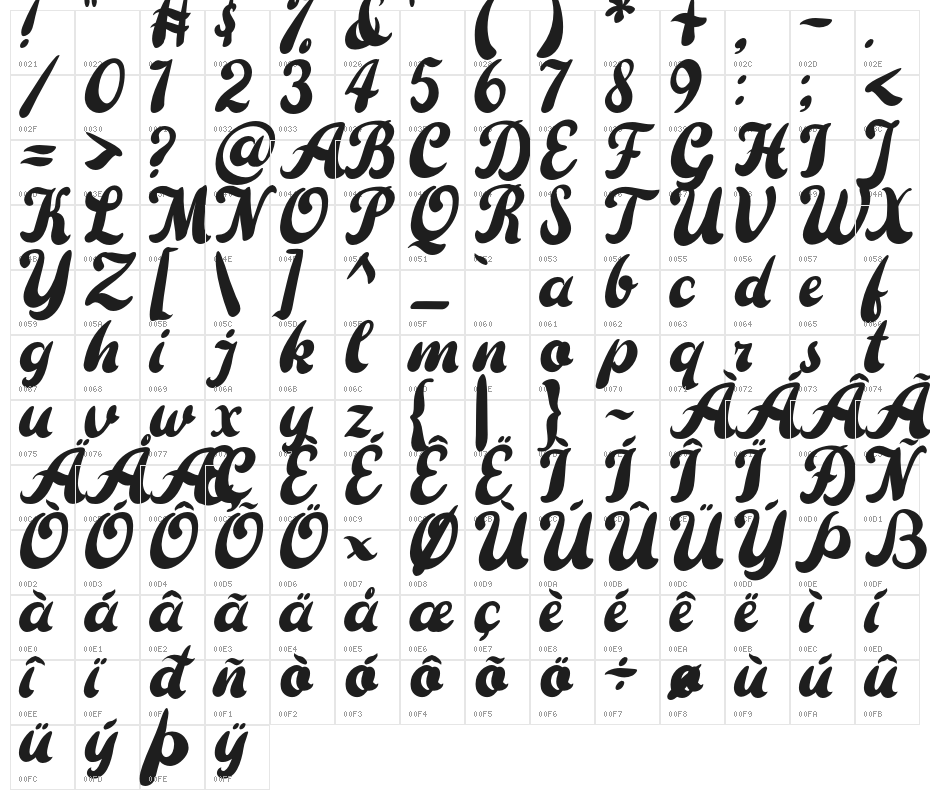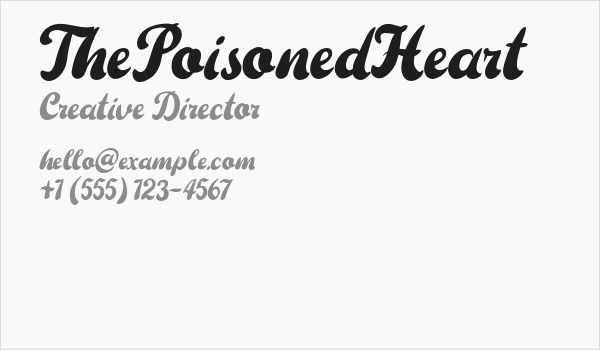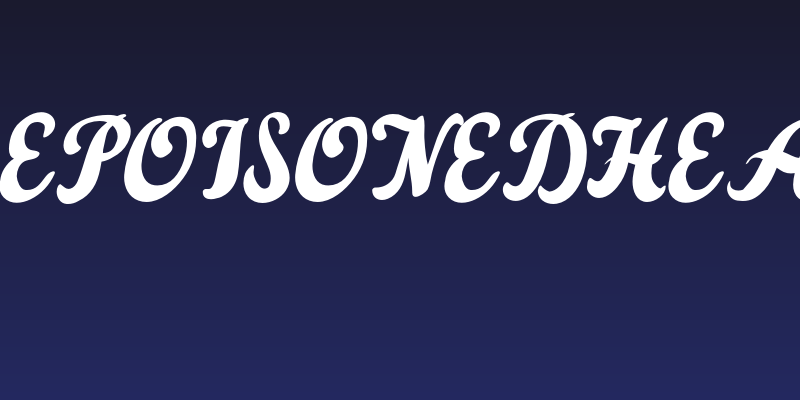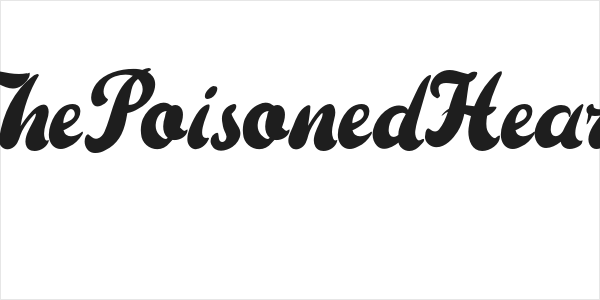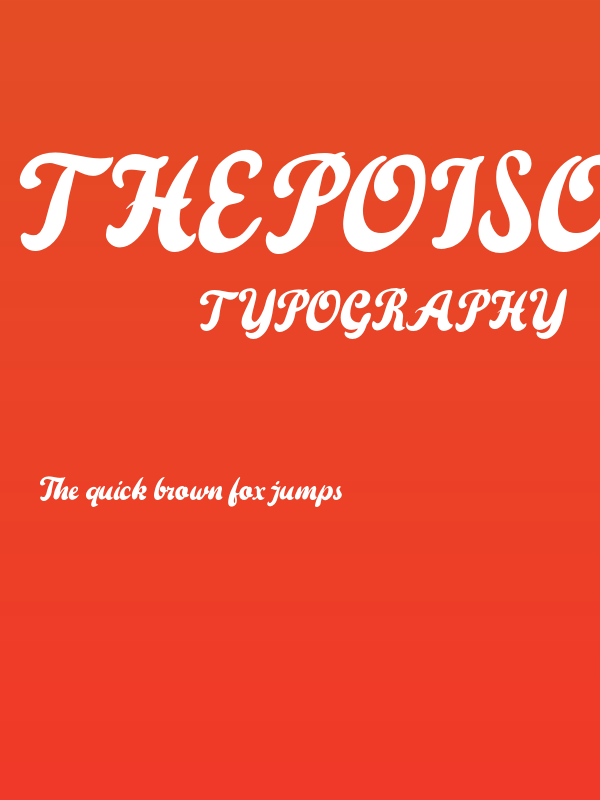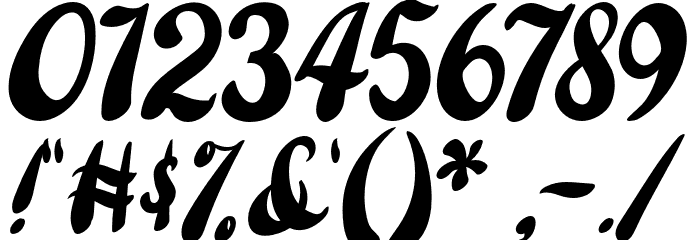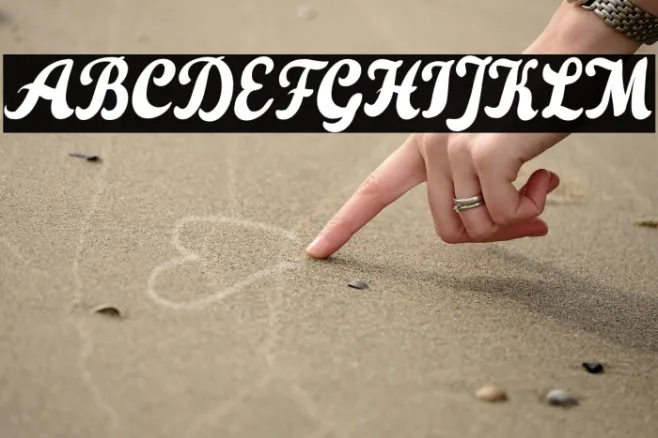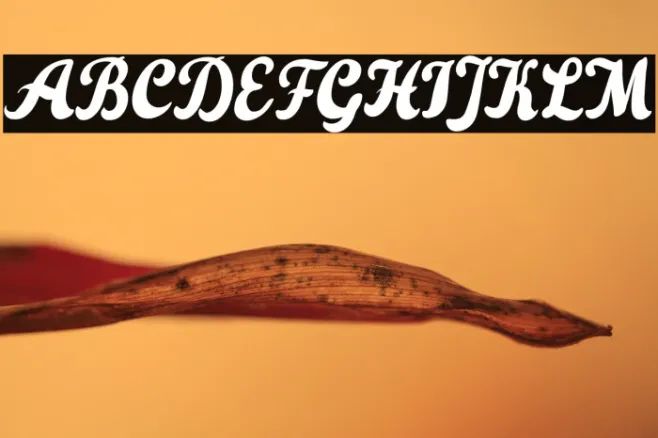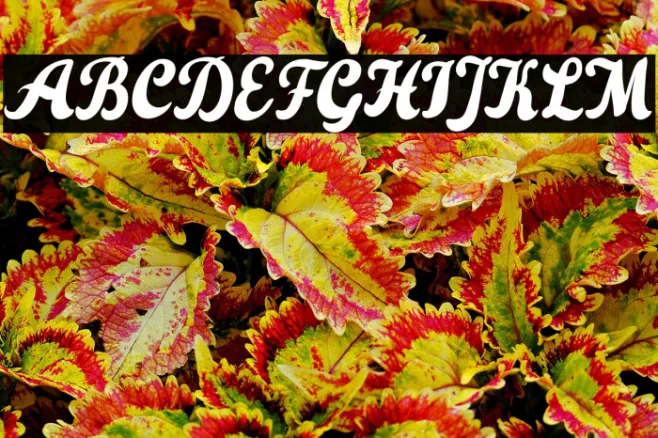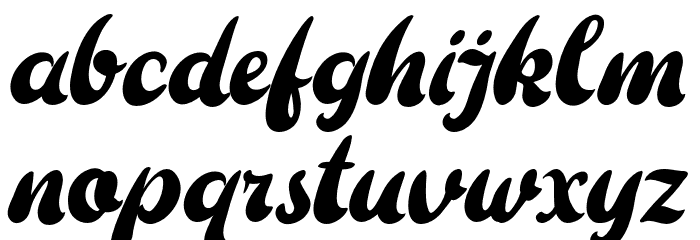
ThePoisonedHeart Font
ThePoisonedHeart Description
This font features a bold and expressive script style with a strong, flowing character. The letters are connected in a cursive manner, giving it a dynamic and elegant appearance. The strokes are thick and consistent, providing a sense of strength and presence. The uppercase letters are slightly more ornate, with flourishes that add a touch of sophistication. The lowercase letters maintain a smooth and cohesive flow, making it suitable for creative and artistic projects. The numerals and special characters are designed to match the overall aesthetic, ensuring uniformity across all elements.